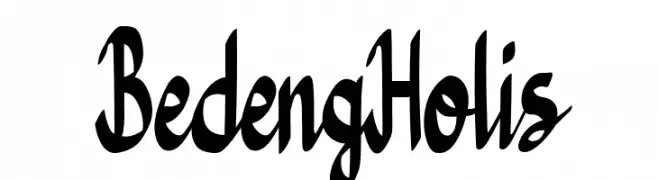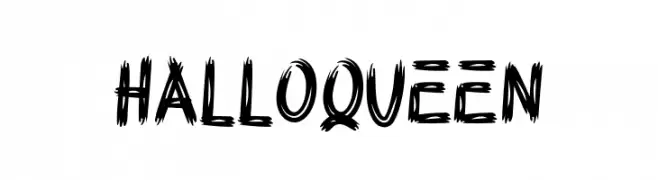
A bold, playful script font with smooth, flowing strokes and a lively handwritten style.
A bold, expressive handwritten-style font with elongated, slanted characters.
A bold, brushstroke-style font with an energetic, hand-drawn appearance.
A bold, 3D isometric font with a geometric and modern style.
A bold, flowing script font with dynamic, energetic curves.
An abstract, hand-drawn style font with bold, irregular strokes and a graffiti-like appearance.
A bold, hand-painted style font with dynamic, brush-like strokes.
A playful, handwritten font with a casual and dynamic style.
A bold, brush-style font with a lively, hand-painted appearance.
A bold, energetic script font with fluid, dynamic strokes and a casual, handwritten feel.